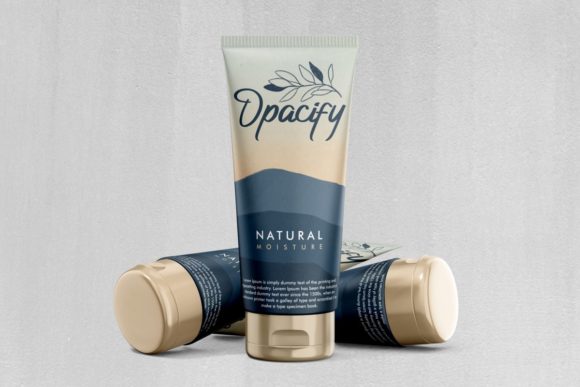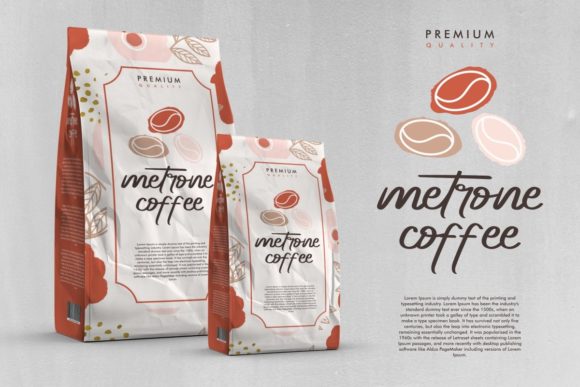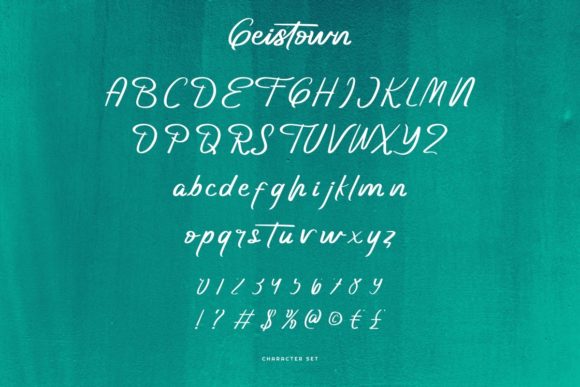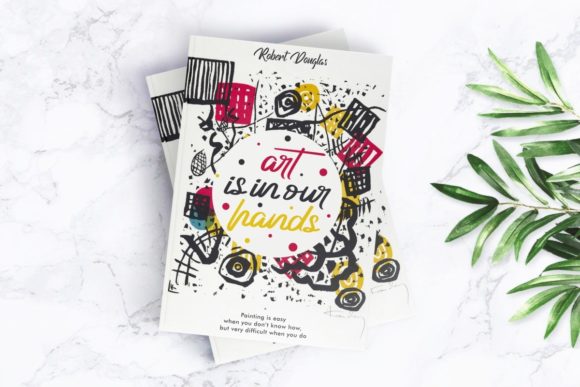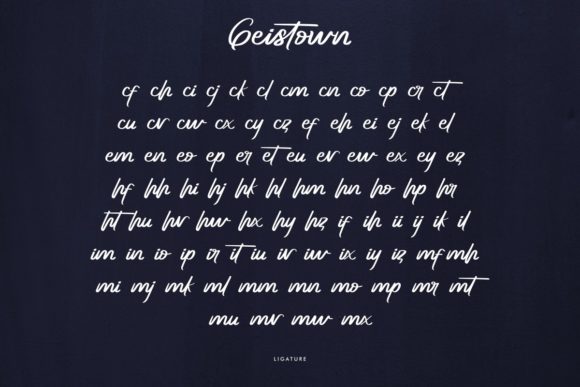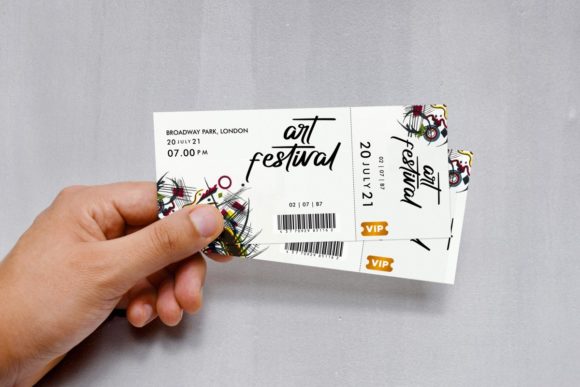
Introducing Geistown Font: A Charming Script Font for Designers and Crafters
Are you tired of using the same old fonts in your designs? Look no further than Geistown Font, a lovely script font that is sure to add a touch of personality to your projects. With its charming, playful characters that seem to dance along the baseline, Geistown Font is perfect for designers and crafters looking to add a bit of whimsy to their work.
What Makes Geistown Font So Special?
Geistown Font is a beautifully designed script font that features a range of charming characters, including swashes, glyphs, and ligatures. The font is PUA encoded, which means that you can access all of the glyphs and swashes with ease, making it simple to customize your text and add your own personal touch.
One of the standout features of Geistown Font is its playful, dancing baseline. The characters in this font seem to leap and bound along the baseline, giving your text a sense of energy and movement. This makes Geistown Font perfect for designs that need to stand out from the crowd, such as titles, headings, and signage.
PUA Encoding: What Does it Mean?
PUA (Private Use Area) encoding is a feature that allows designers to access a wide range of glyphs and swashes in a font. In the case of Geistown Font, PUA encoding means that you can easily access all of the font’s charming characters, including swashes, ligatures, and glyphs.
Uses for Geistown Font
Geistown Font is a versatile font that can be used in a wide range of design projects. Here are just a few ideas to get you started:
- Signage: Geistown Font is perfect for signage, including store signs, restaurant menus, and event signs. The font’s playful, dancing baseline is sure to grab attention and add a touch of personality to your signs.
- Stationery: Add a touch of whimsy to your stationery with Geistown Font. The font is perfect for invitations, greeting cards, and other paper crafts.
- Digital Design: Geistown Font can be used in a wide range of digital design projects, including social media graphics, blog posts, and website headers.
- Crafting: Geistown Font is perfect for crafters who love to work with paper, fabric, and other materials. Use the font to add a personal touch to your crafts, including scrapbooking, quilting, and sewing projects.
Tips for Using Geistown Font
Here are a few tips for getting the most out of Geistown Font:
- Experiment with different sizes: Geistown Font looks great in a wide range of sizes, from large headings to smaller body text. Experiment with different sizes to find the one that works best for your project.
- Play with swashes and glyphs: Geistown Font features a wide range of swashes and glyphs, including ligatures and ornaments. Experiment with different swashes and glyphs to add a personal touch to your text.
- Pair with other fonts: Geistown Font pairs well with a wide range of other fonts, including serif and sans serif fonts. Experiment with different font combinations to find the one that works best for your project.
Geistown Font is a charming script font that is perfect for designers and crafters looking to add a touch of personality to their projects. With its playful, dancing baseline and PUA encoding, Geistown Font is a versatile font that can be used in a wide range of design projects. Whether you’re working on a signage project, a digital design, or a crafting project, Geistown Font is sure to add a touch of whimsy and charm.